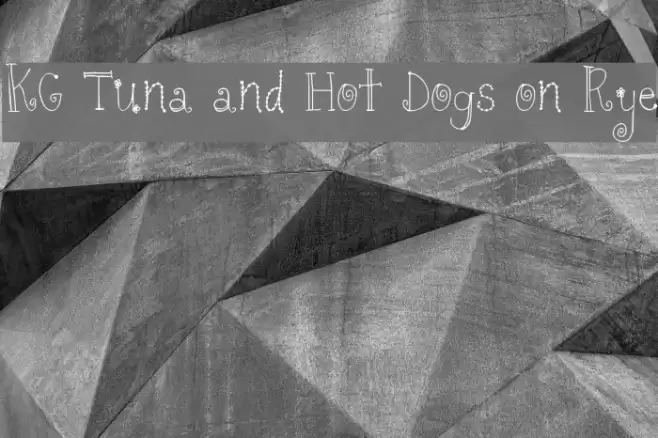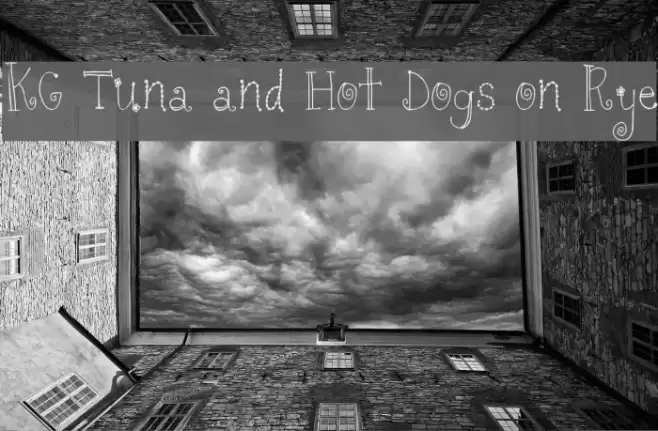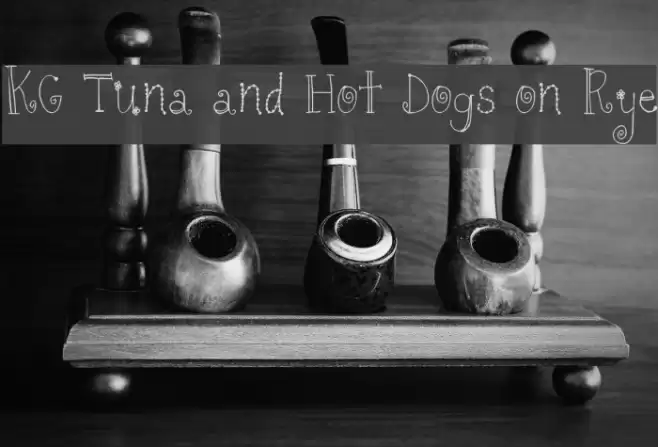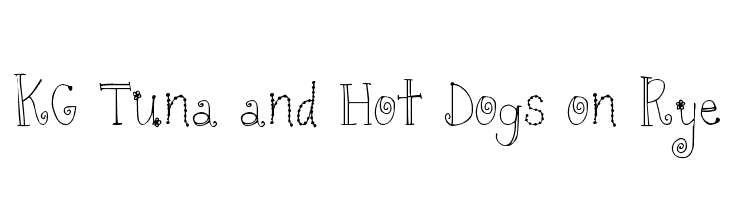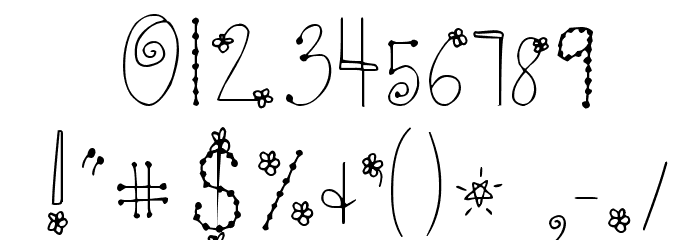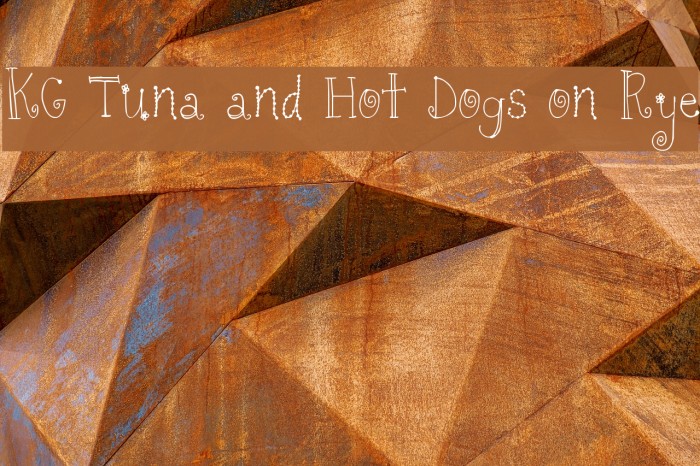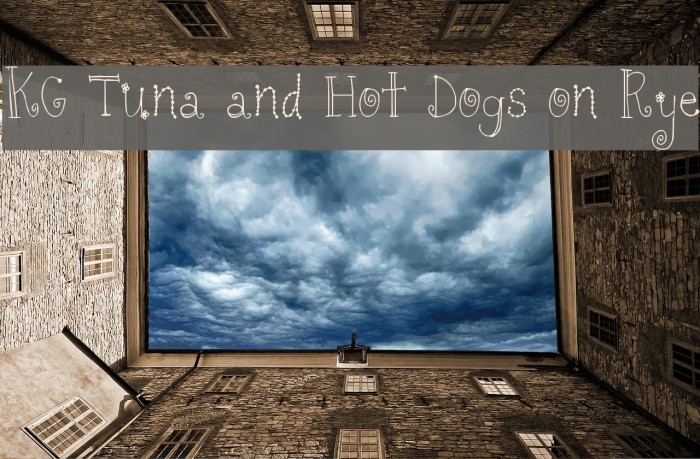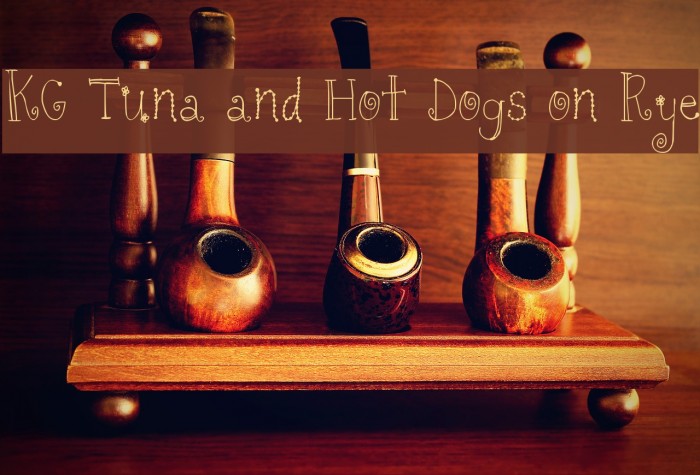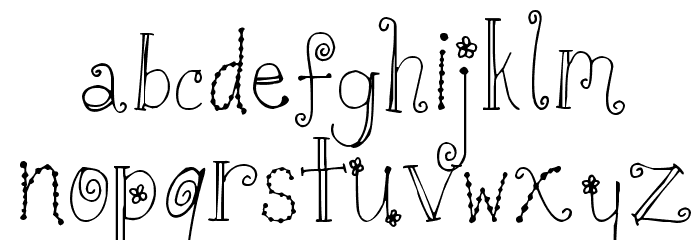
KG Tuna and Hot Dogs on Rye Font
KG Tuna and Hot Dogs on Rye Description
This whimsical and playful font features a unique design with floral and spiral embellishments on each character, giving it a lively and cheerful appearance. The uppercase letters are tall and slender, with decorative elements that add a touch of fun and creativity. The lowercase letters maintain the same playful style, with some characters featuring loops and swirls that enhance the font's charm. The numbers are consistent with the overall design, incorporating similar decorative features. Special characters are also adorned with floral motifs, making them stand out. This font is perfect for projects that require a lighthearted and imaginative touch.
A whimsical font with floral and spiral embellishments, perfect for playful designs from Uncategorized fonts.
- Proposed Projects: Ideal for children's book covers, greeting cards, playful branding, and creative invitations.
- Overall Style: Playful, Whimsical
- Use Case: Headlines, Logos, Decorative text